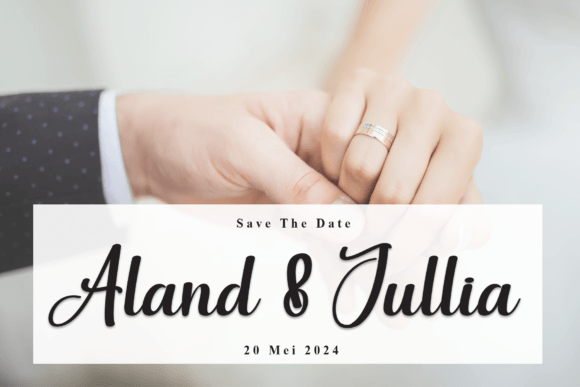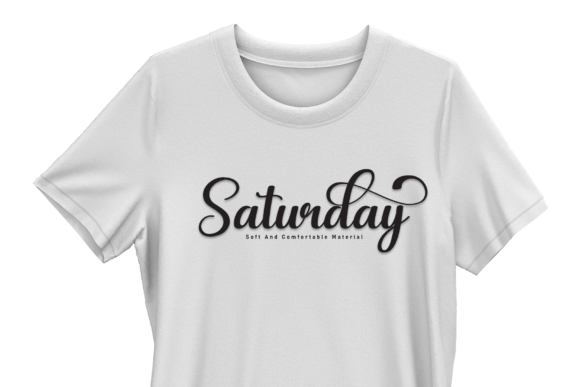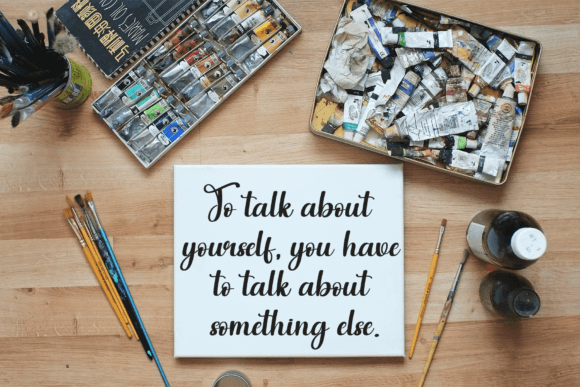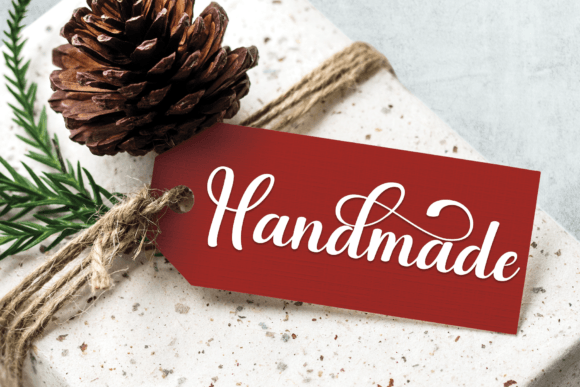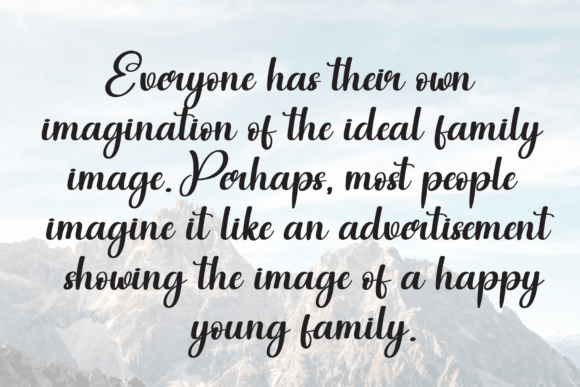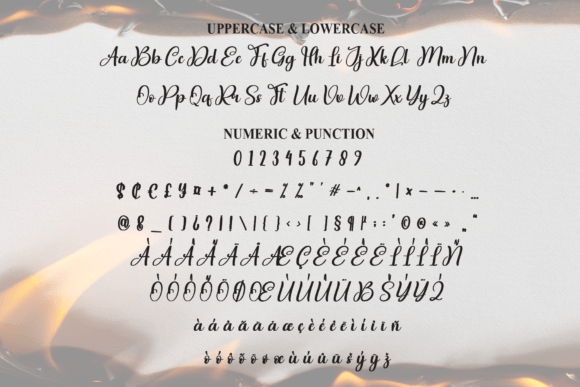
Baking Font: The Sweetest Addition to Your Design Collection
Are you a designer or crafter looking for a font that can add a touch of warmth and friendliness to your projects? Look no further than Baking Font! This sweet and friendly handwritten font is perfect for creating wedding invitations, cards, and other designs that require a fun and playful twist.
What Makes Baking Font So Special?
Baking Font is a cute and versatile font that can be used in a variety of design projects. Its handwritten style gives it a personal and approachable feel, making it ideal for designs that require a touch of whimsy and charm. Whether you’re creating wedding invitations, birthday cards, or social media graphics, Baking Font is sure to add a sweet and friendly touch to your designs.
Key Features of Baking Font
- Cute and Playful: Baking Font has a playful and whimsical feel that’s perfect for designs that require a fun touch.
- Handwritten Style: The font’s handwritten style gives it a personal and approachable feel that’s perfect for creating designs that feel friendly and approachable.
- Versatile: Baking Font can be used in a variety of design projects, from wedding invitations to social media graphics.
- Easily Readable: The font is easy to read, making it perfect for designs that require a clear and concise message.
Baking Font is a perfect addition to any designer’s or crafter’s collection. Its versatility and playfulness make it ideal for a wide range of design projects, from digital designs to print materials. Whether you’re creating:
- Birthday cards and party decorations
- Print-on-demand products, such as t-shirts and mugs
Baking Font is sure to add a touch of sweetness and friendliness to your designs.
- Pair it with other fonts: Baking Font pairs well with other fonts, such as serif and sans-serif fonts. Experiment with different font combinations to create a unique look.
- Use it for headings and titles: Baking Font is perfect for headings and titles, where its playful and whimsical feel can really shine.
- Add it to your digital designs: Baking Font can be used in digital designs, such as social media graphics and blog posts, to add a touch of personality and whimsy.